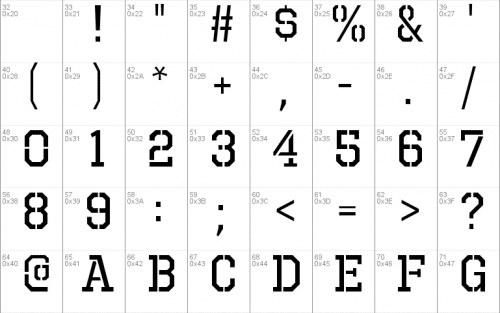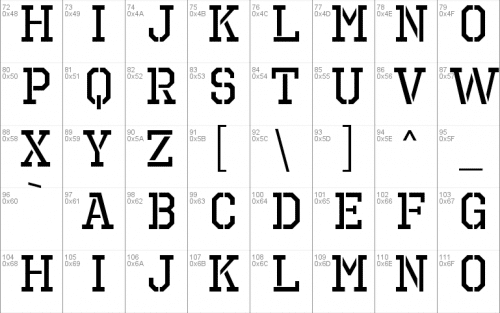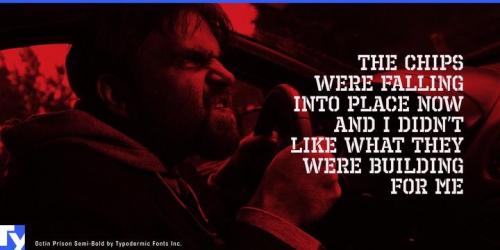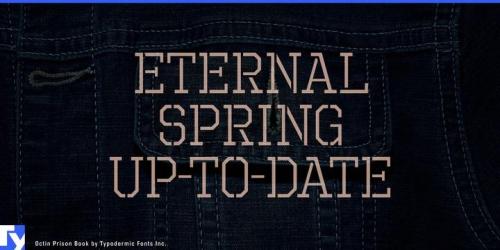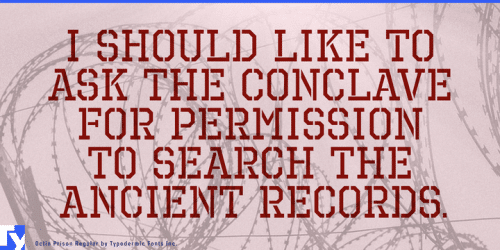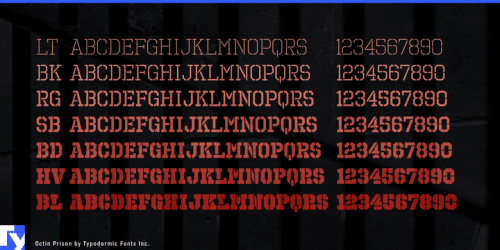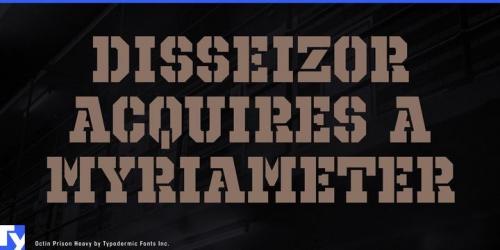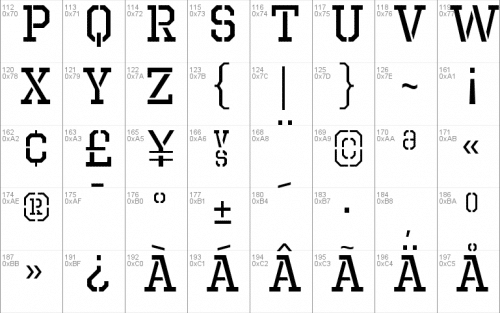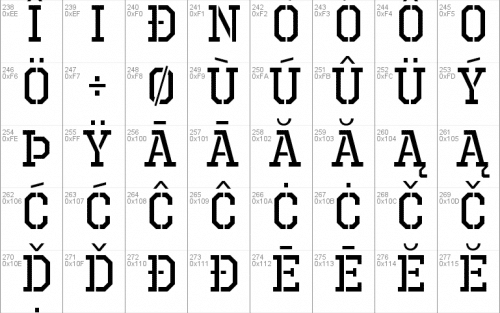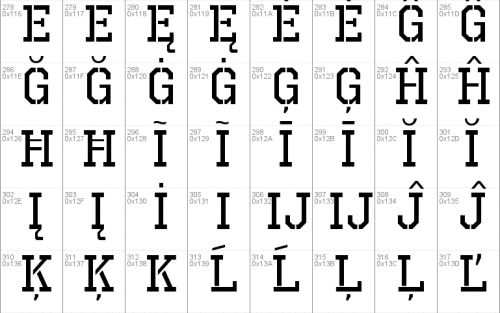
Octin Prison is a tough headliner in 7 weights: light, book, regular, semi-bold, heavy & black. Octin Prison isn’t just for jail; it’s also great for sports, school, police, construction or military themes.
- Designer: Ray Larabie